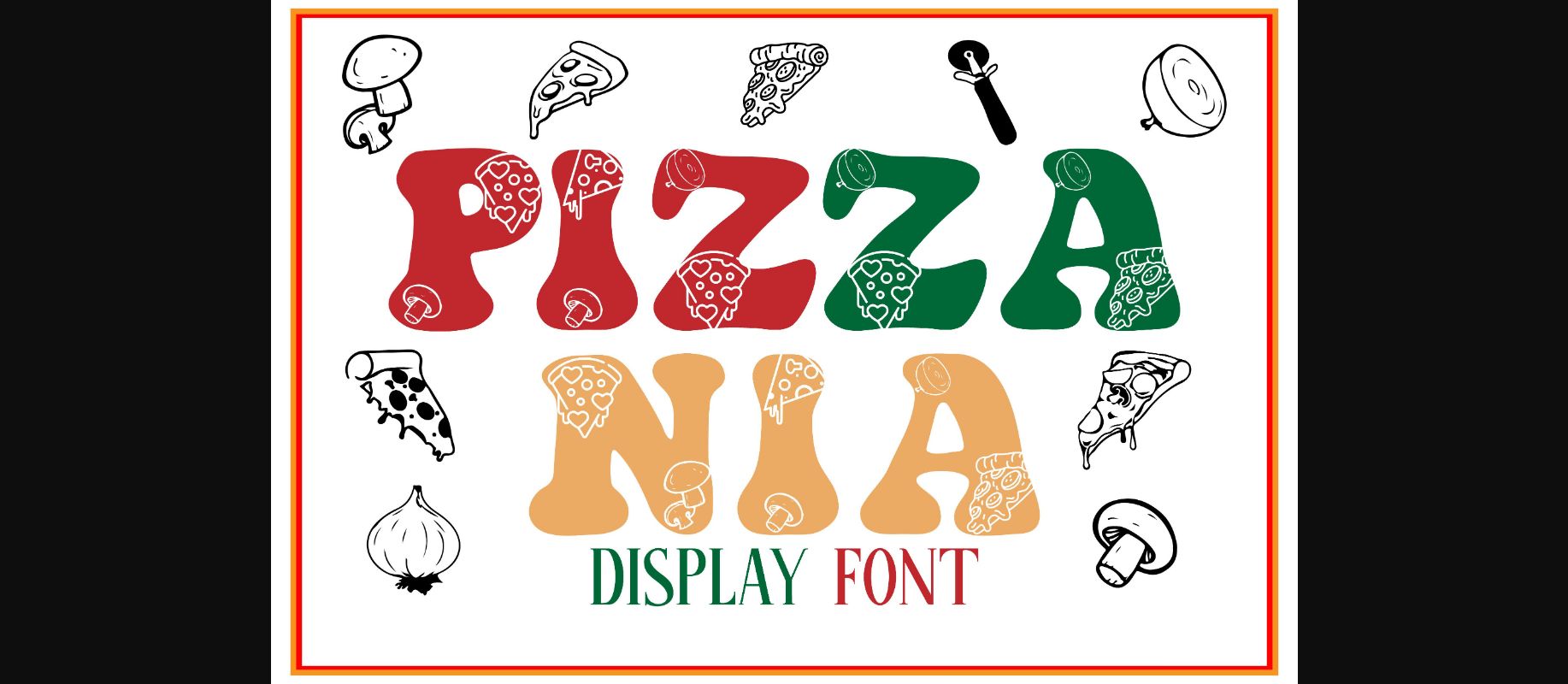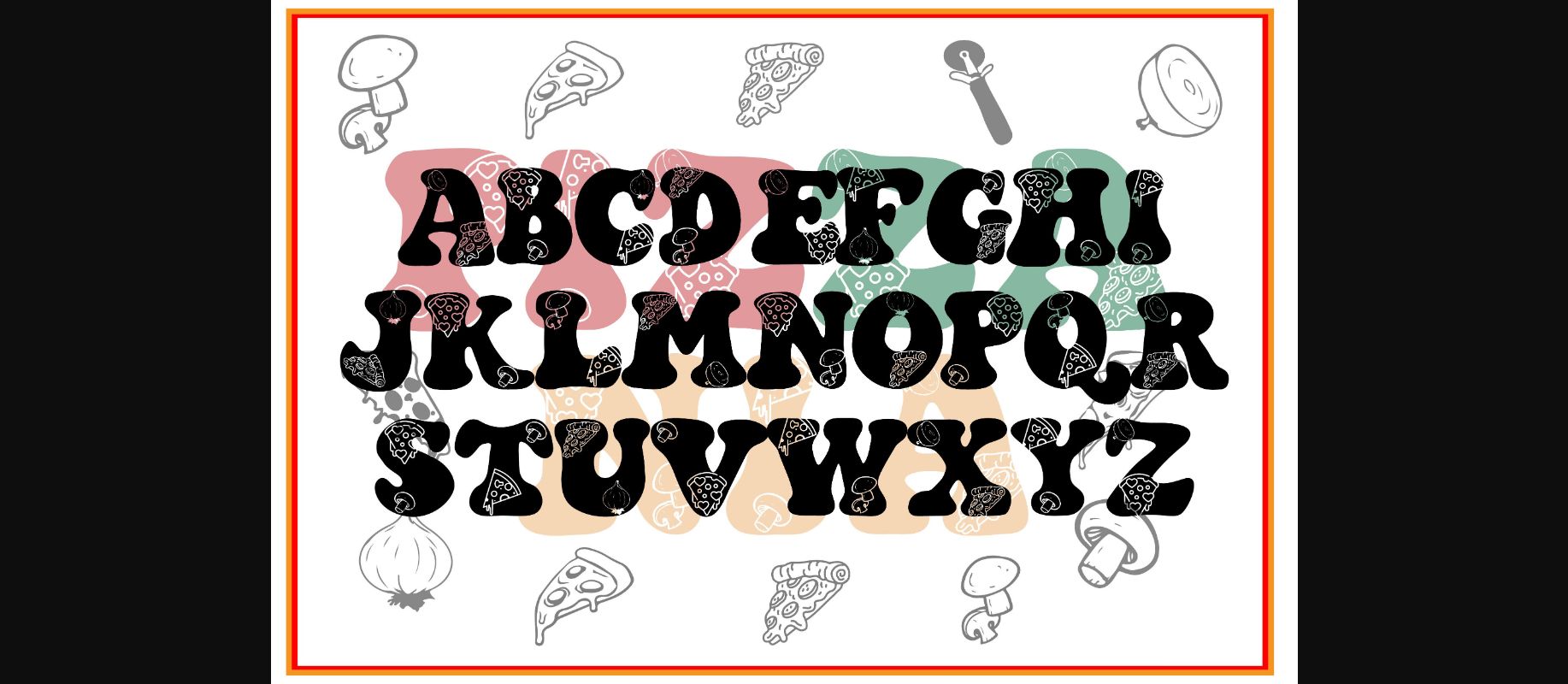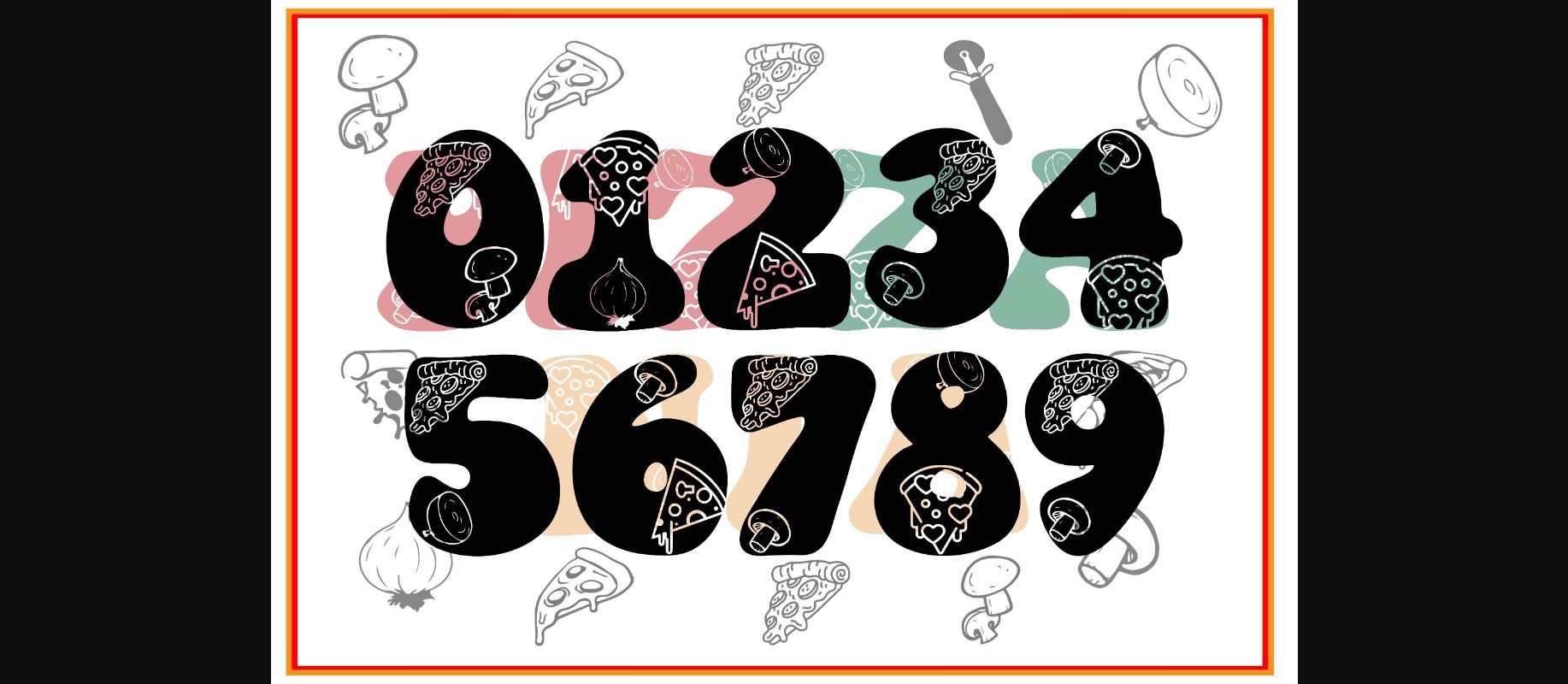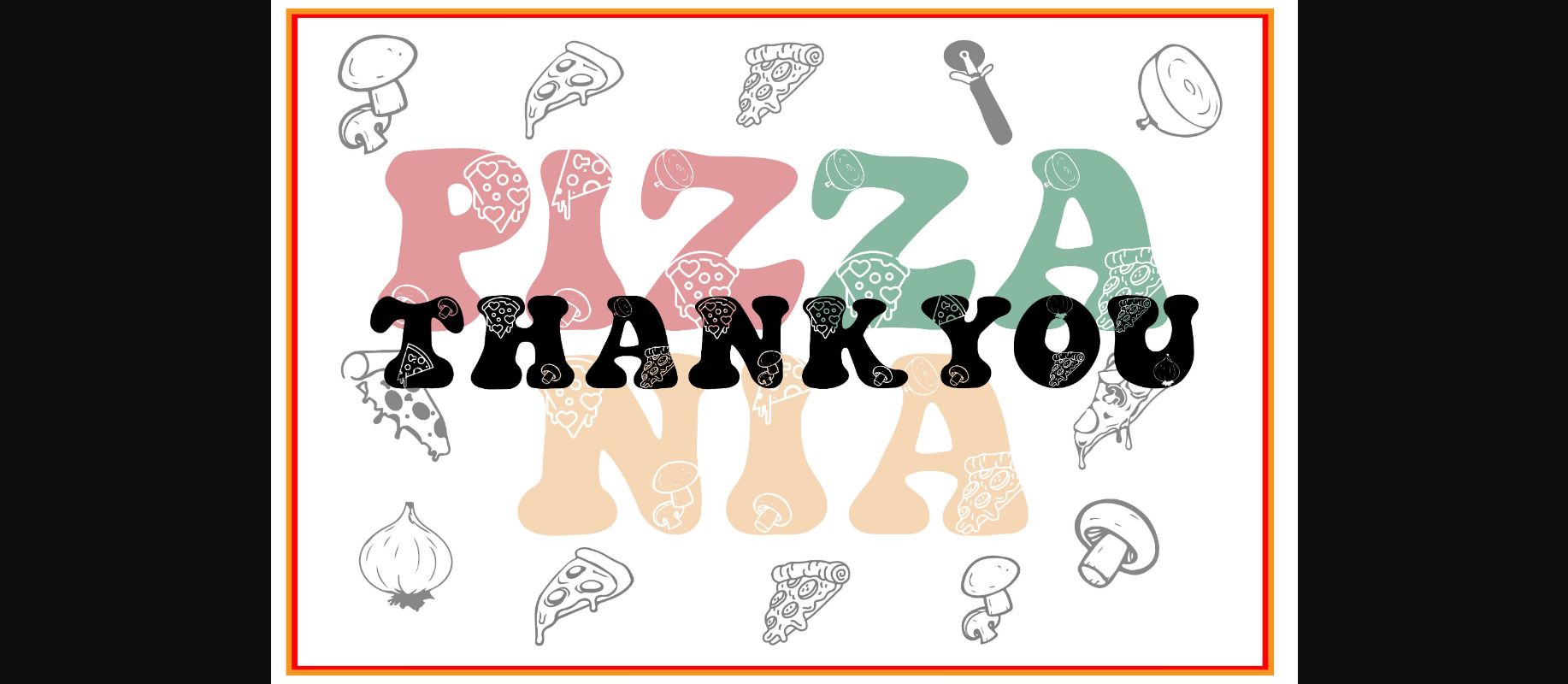
About Pizzania Font
Pizzania is a thick-lettered and fun-looking decorative font. It is perfect for restaurant menus, diner boards, food packaging, or anything that needs to look delicious!